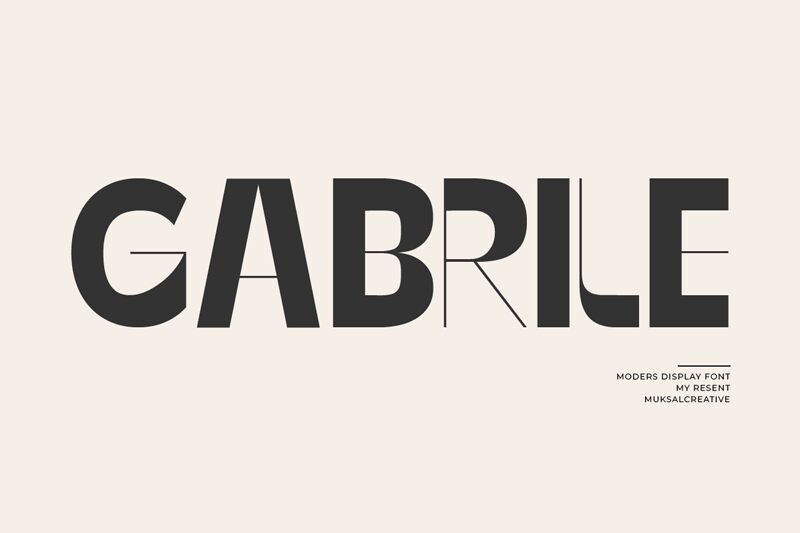
Gabrile Regular
Gabrile font by Muksal Creative is a bold display type with a retro touch and geometric, clean, and minimalist look. Balanced with modern proportions, this contemporary alphabet combines well-defined edges with classic aesthetics for an expressive set ideal for attention-grabbing projects.